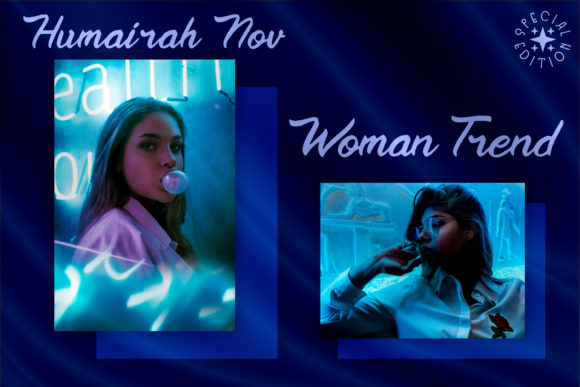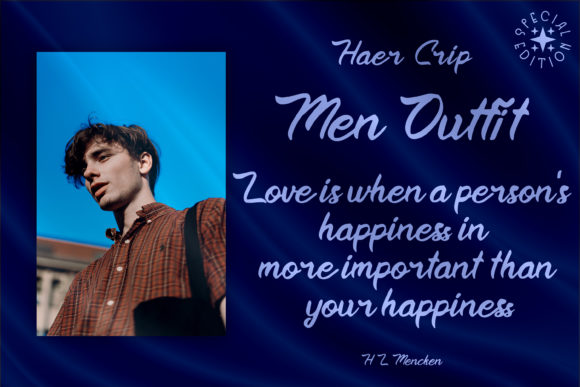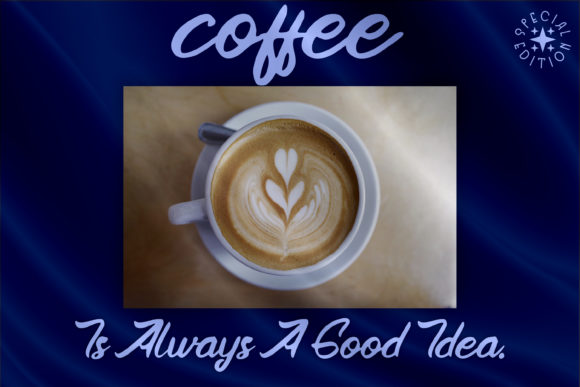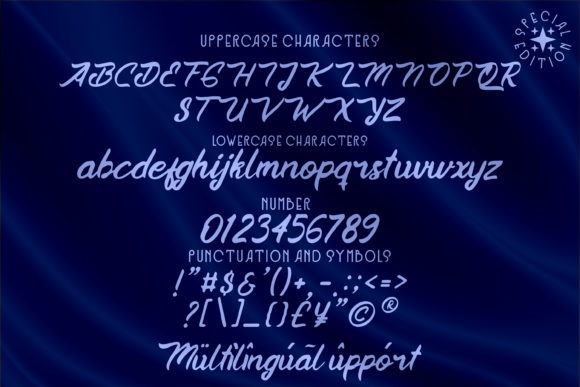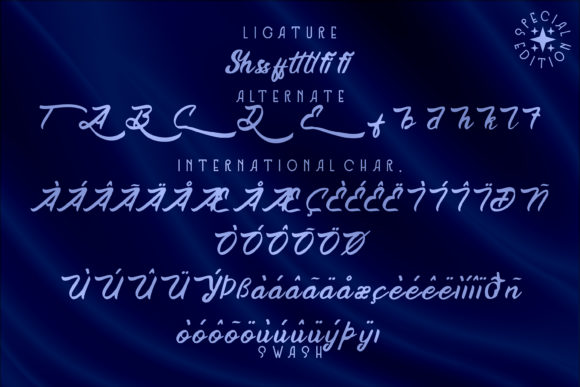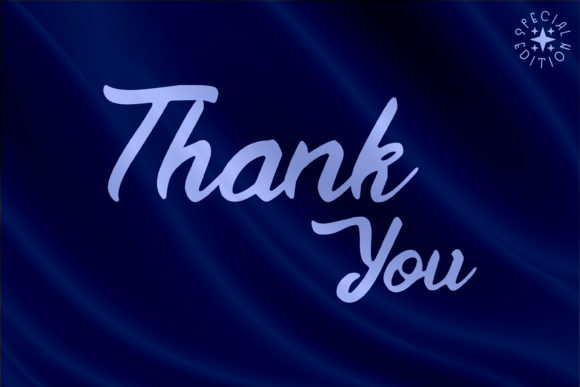
Dandelion Font: Elevate Your Designs with Elegance and Sophistication
Are you a designer or crafter looking for a font that exudes luxury and sophistication? Look no further than the Dandelion Font. This free-flowing and eternal script font is perfect for a variety of design projects, from logos and branding to homeware designs, product packaging, and more.
What Makes Dandelion Font So Special?
Dandelion Font is a premium script font that boasts a unique and elegant style. Its free-flowing design makes it perfect for creating beautiful, eye-catching text that will elevate any design project. Whether you’re working on a logo, a poster, or a product packaging design, Dandelion Font is sure to make your text stand out.
Perfect for Luxury Projects
Dandelion Font is specifically designed for luxury projects that require a premium signature taste. Its elegant and sophisticated design makes it perfect for high-end branding projects, product packaging, and homeware designs. With Dandelion Font, you can create designs that exude luxury and sophistication, making it perfect for designers and crafters who want to create high-end designs.
One of the best things about Dandelion Font is that it’s PUA encoded. This means that you can access all of the glyphs and swashes with ease, making it simple to customize your designs. With PUA encoding, you can easily access a wide range of characters, including ligatures, ornaments, and swashes, allowing you to create unique and eye-catching designs.
Use Dandelion Font for a Variety of Projects
Dandelion Font is versatile and can be used for a wide range of design projects, including:
- Logos and branding projects
- Homeware designs
- Product packaging
- Mugs and other promotional products
- Quotes and posters
- Luxury projects that require a premium signature taste
Why Choose Dandelion Font?
There are many reasons why designers and crafters choose Dandelion Font for their design projects. Here are just a few:
- Elegant and sophisticated design: Dandelion Font boasts a unique and elegant design that will elevate any design project.
- PUA encoded for easy access: With PUA encoding, you can easily access a wide range of characters, including ligatures, ornaments, and swashes.
- Versatile: Dandelion Font can be used for a wide range of design projects, from logos and branding to homeware designs and product packaging.
- Luxury feel: Dandelion Font is perfect for designers and crafters who want to create high-end designs that exude luxury and sophistication.
Tips for Using Dandelion Font
Here are a few tips for using Dandelion Font in your design projects:
- Use it sparingly: Dandelion Font is a statement font, so use it sparingly to make a big impact.
- Experiment with different sizes and colors: Dandelion Font looks great in a variety of sizes and colors, so don’t be afraid to experiment.
- Pair it with other fonts: Dandelion Font pairs well with other fonts, so try pairing it with a sans-serif font for a bold and eye-catching design.
Dandelion Font is a premium script font that is perfect for designers and crafters who want to create high-end designs that exude luxury and sophistication. With its elegant and sophisticated design, PUA encoding, and versatility, Dandelion Font is a great choice for a wide range of design projects. Whether you’re working on a logo, a poster, or a product packaging design, Dandelion Font is sure to elevate your design and make it stand out.